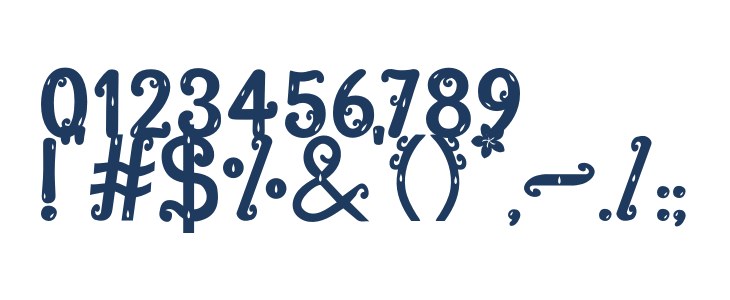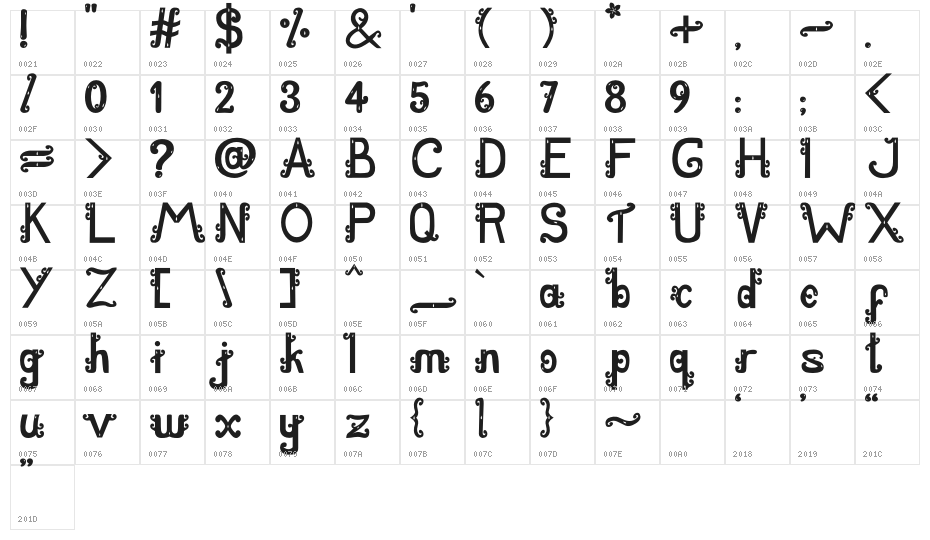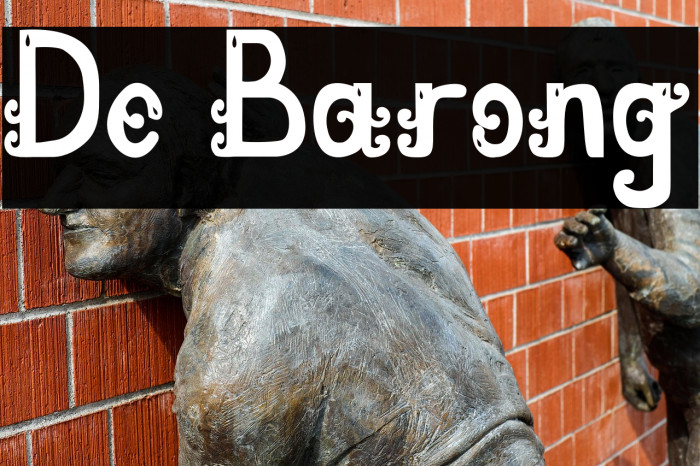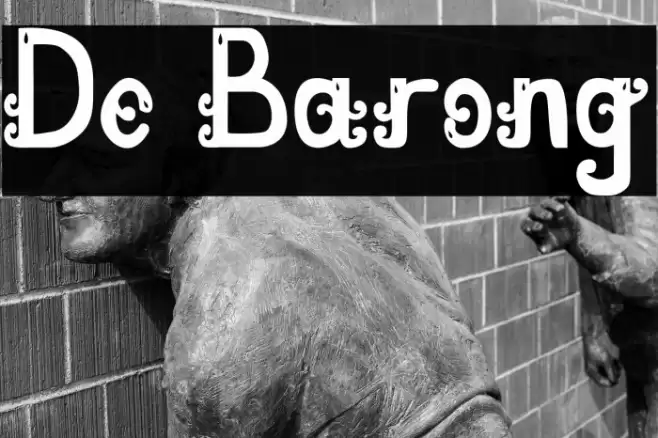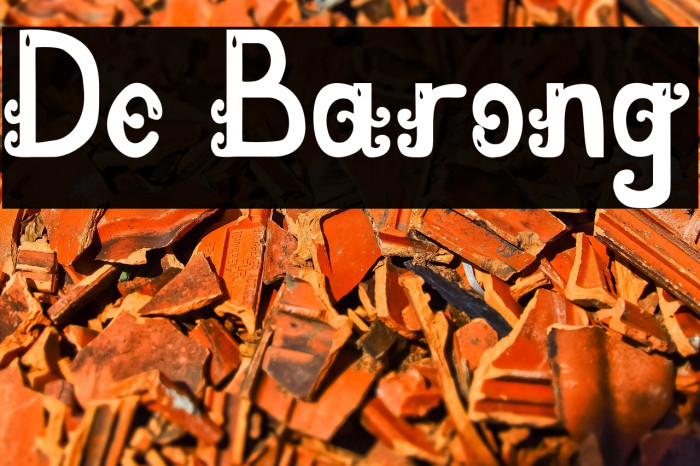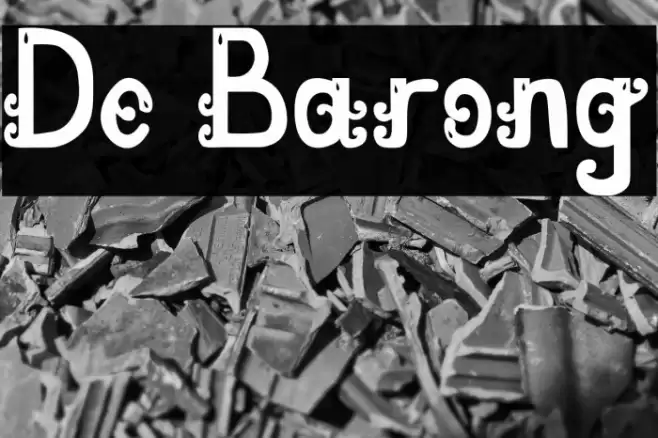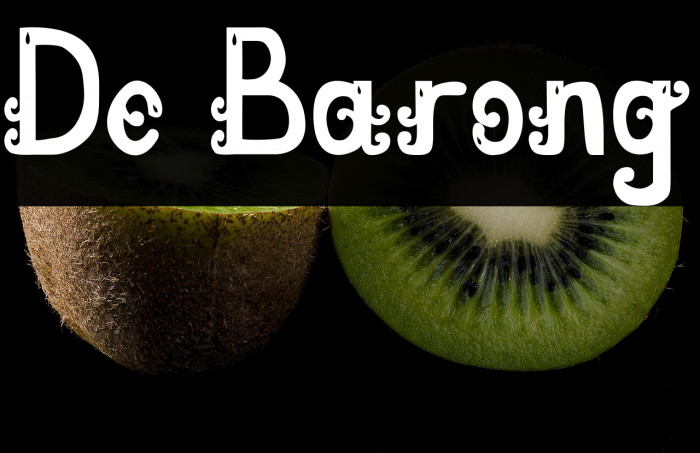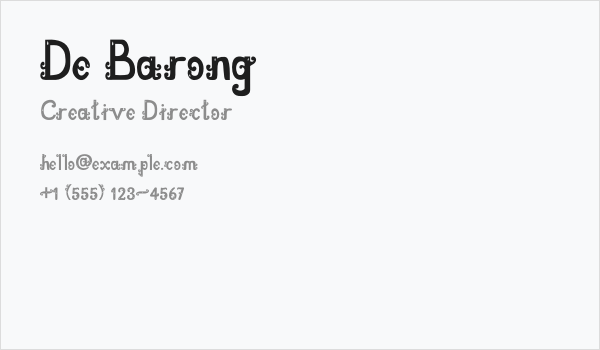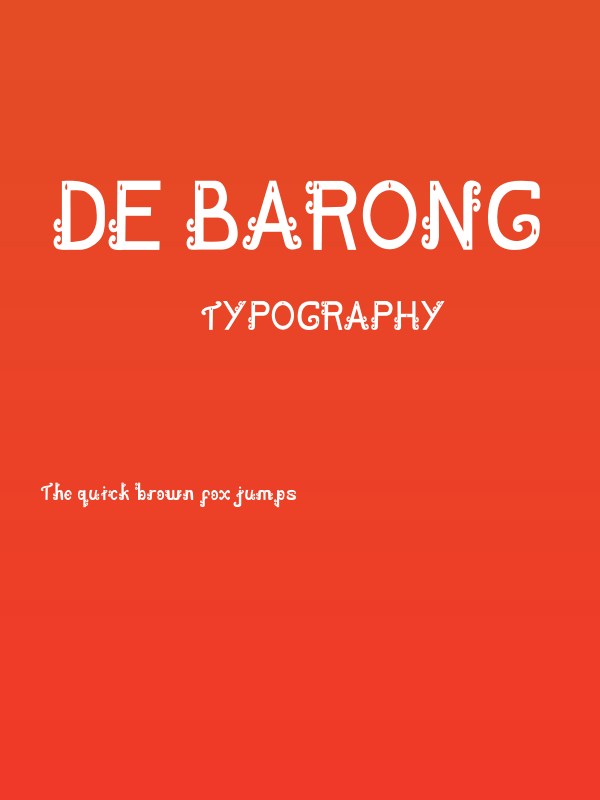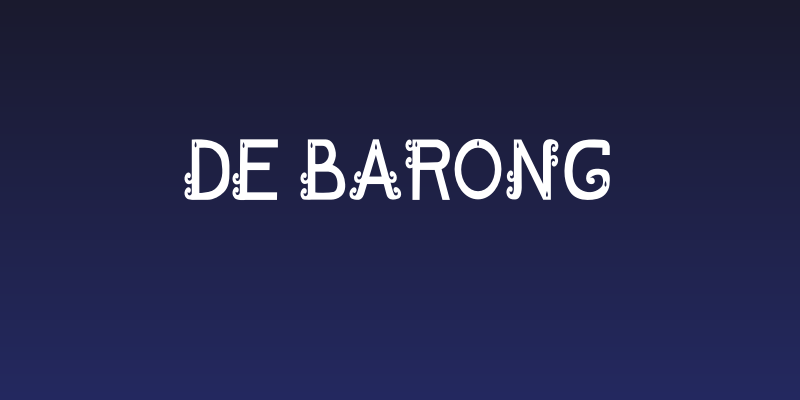
De Barong Font
De Barong Description
This font features a unique and decorative style with intricate curls and embellishments adorning each character. The uppercase and lowercase letters maintain a consistent design, with bold strokes and playful, ornate details that give it a whimsical and artistic flair. The numerals and special characters follow the same decorative theme, ensuring a cohesive look across all elements. This font is ideal for projects that require a touch of creativity and elegance, making it suitable for artistic and themed designs.
Proposed ProjectsIdeal for invitations, posters, branding, and creative projects that require a decorative touch.